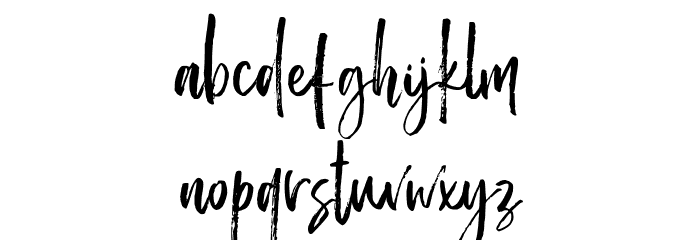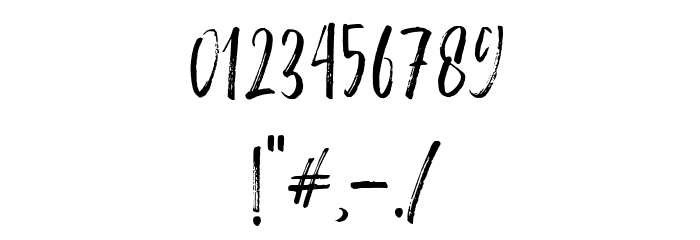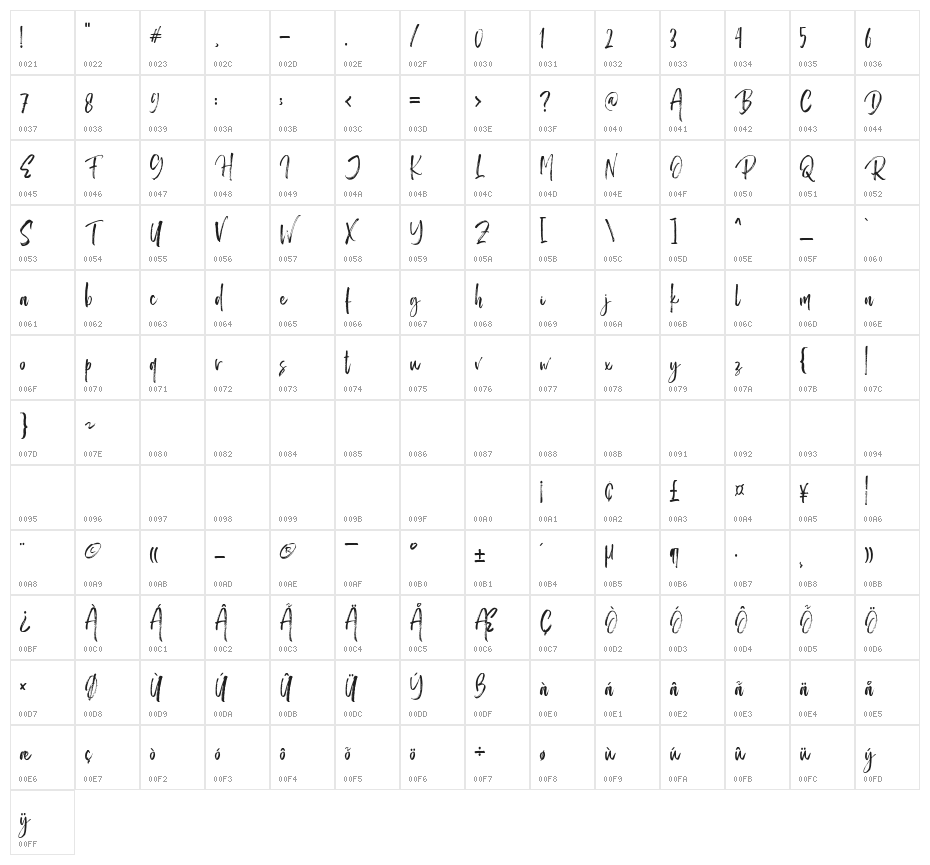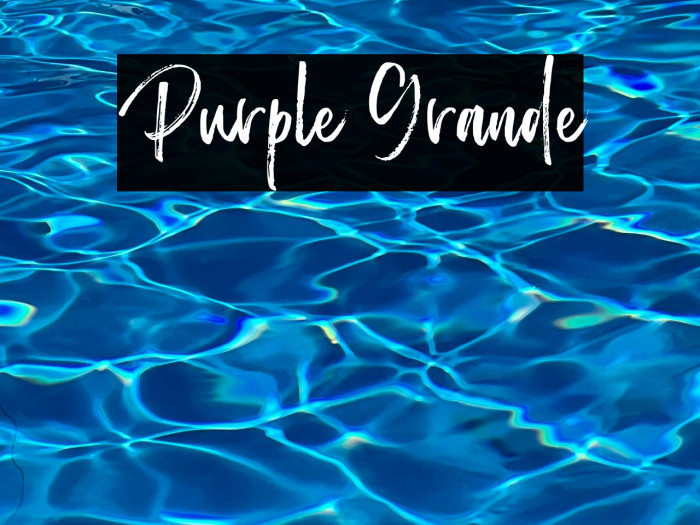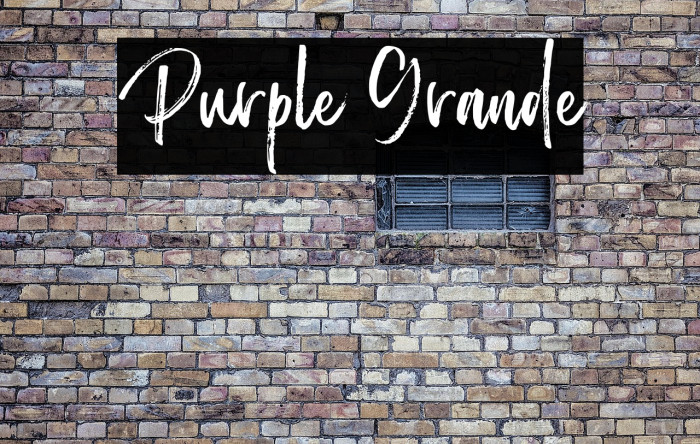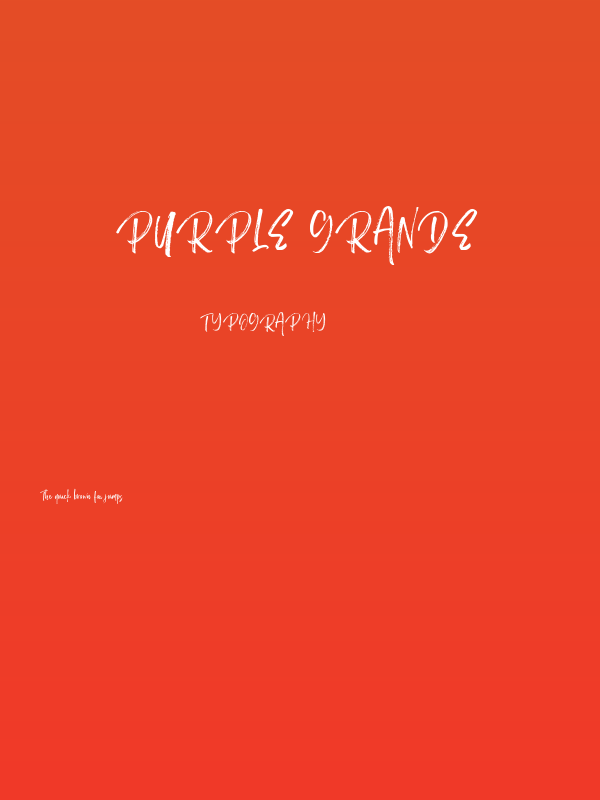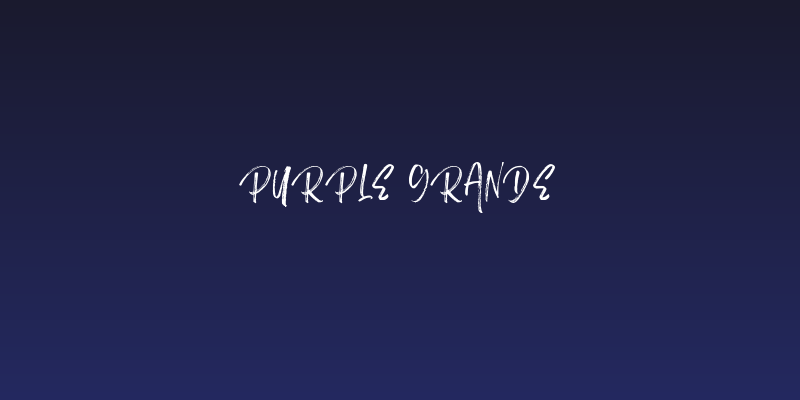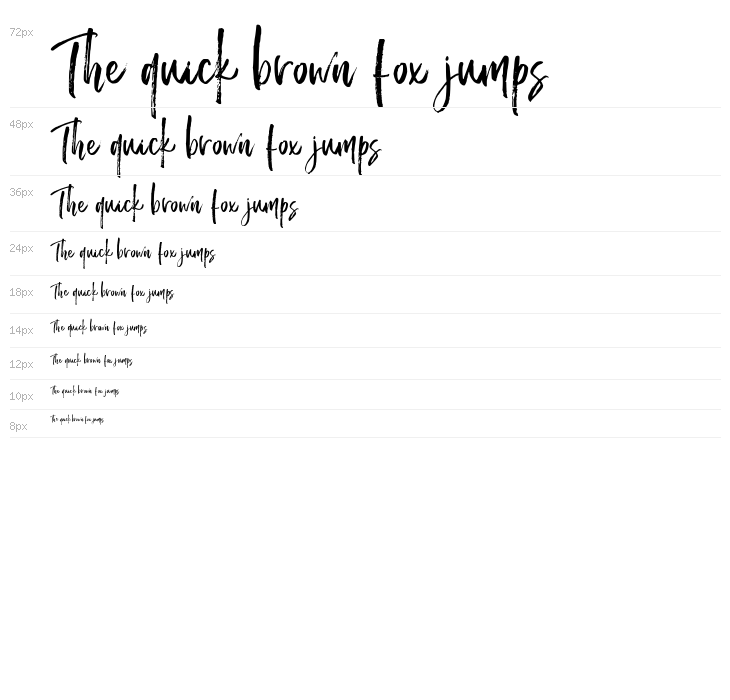
Purple Grande Font
This font exhibits a dynamic and expressive style, characterized by its brush-like strokes and fluid, handwritten appearance. The letters have a natural, organic flow, with varying thickness that adds a sense of movement and energy. The uppercase letters are bold and prominent, while the lowercase letters maintain a consistent style, offering a harmonious blend. The numbers and special characters are crafted with the same artistic flair, ensuring a cohesive look across all elements. The overall design is both modern and artistic, making it suitable for creative and eye-catching projects.
A dynamic, brush-style font with an expressive, handwritten look.
- Proposed Projects: Ideal for branding, posters, invitations, and artistic projects that require a personal touch.
- Overall Style: Modern, Artistic
- Use Case: Headlines, Logos, Creative projects